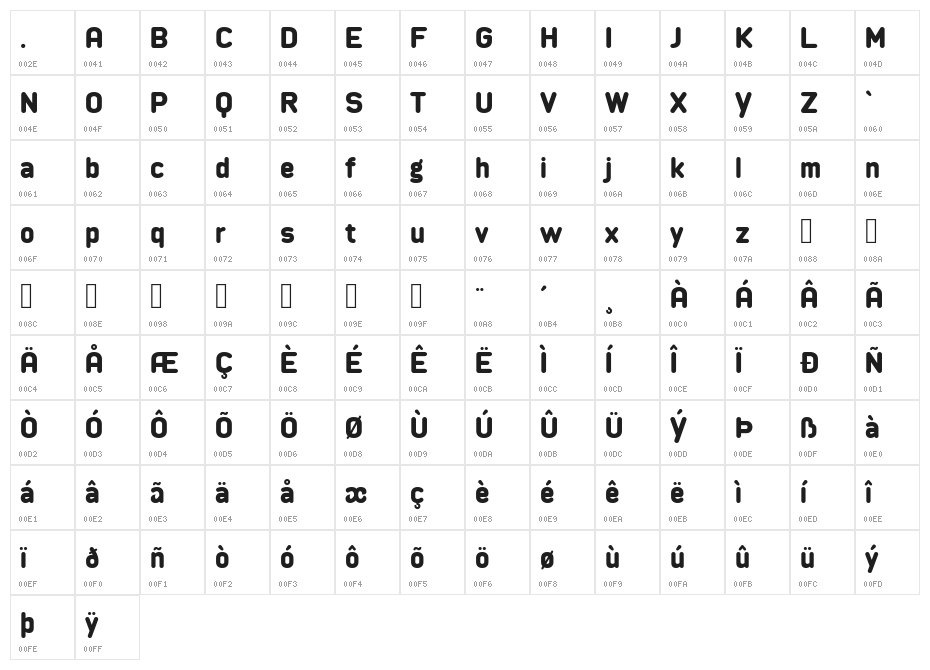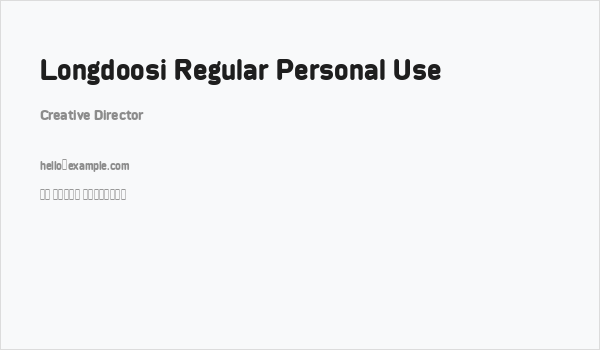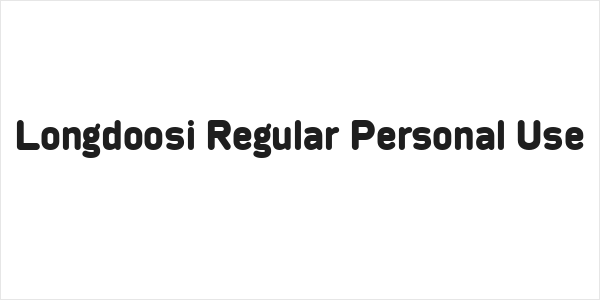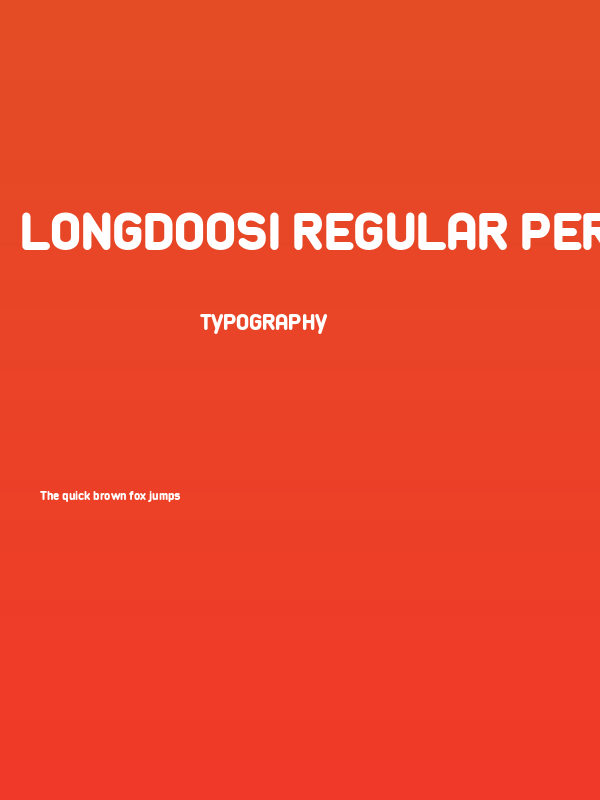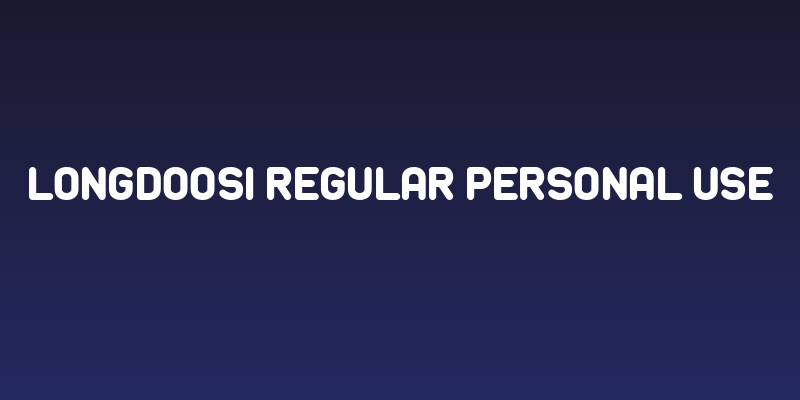
Longdoosi Regular Personal Use Font
Longdoosi Regular Personal Use Description
This font features a bold and rounded style, characterized by its thick, uniform strokes and smooth curves. The letters are evenly spaced, providing a clean and modern appearance. The uppercase and lowercase letters maintain a consistent design, with rounded edges that give a friendly and approachable feel. The numbers and special characters follow the same design principles, ensuring a cohesive look across all elements. This font's simplicity and clarity make it versatile for various design applications.
| Proposed Projects | Ideal for branding, headlines, posters, and digital media where a modern and friendly look is desired. |